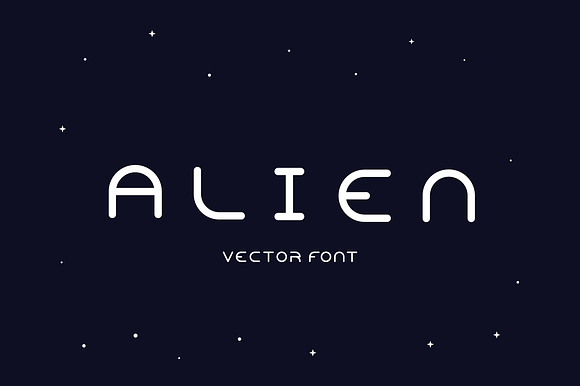
Vector Font. Alien
Alien – only vector font with modern, elegant and cosmic style. When you need to go to the other side of the universe, don't forget to grab that typeface
Alien Font Variations